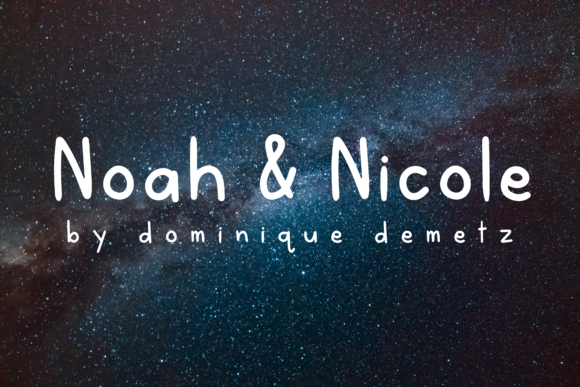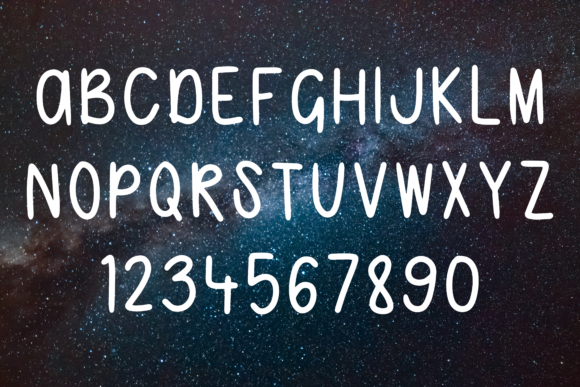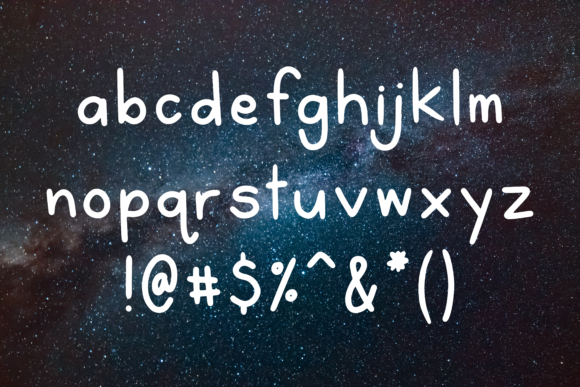
Noah & Nicole Font
About Noah & Nicole Font
The Noah & Nicole is a cute print font. It has an amazing readability and will add a modern touch to your designs.